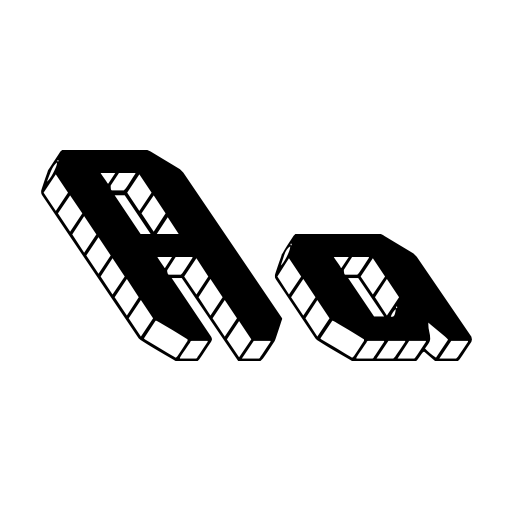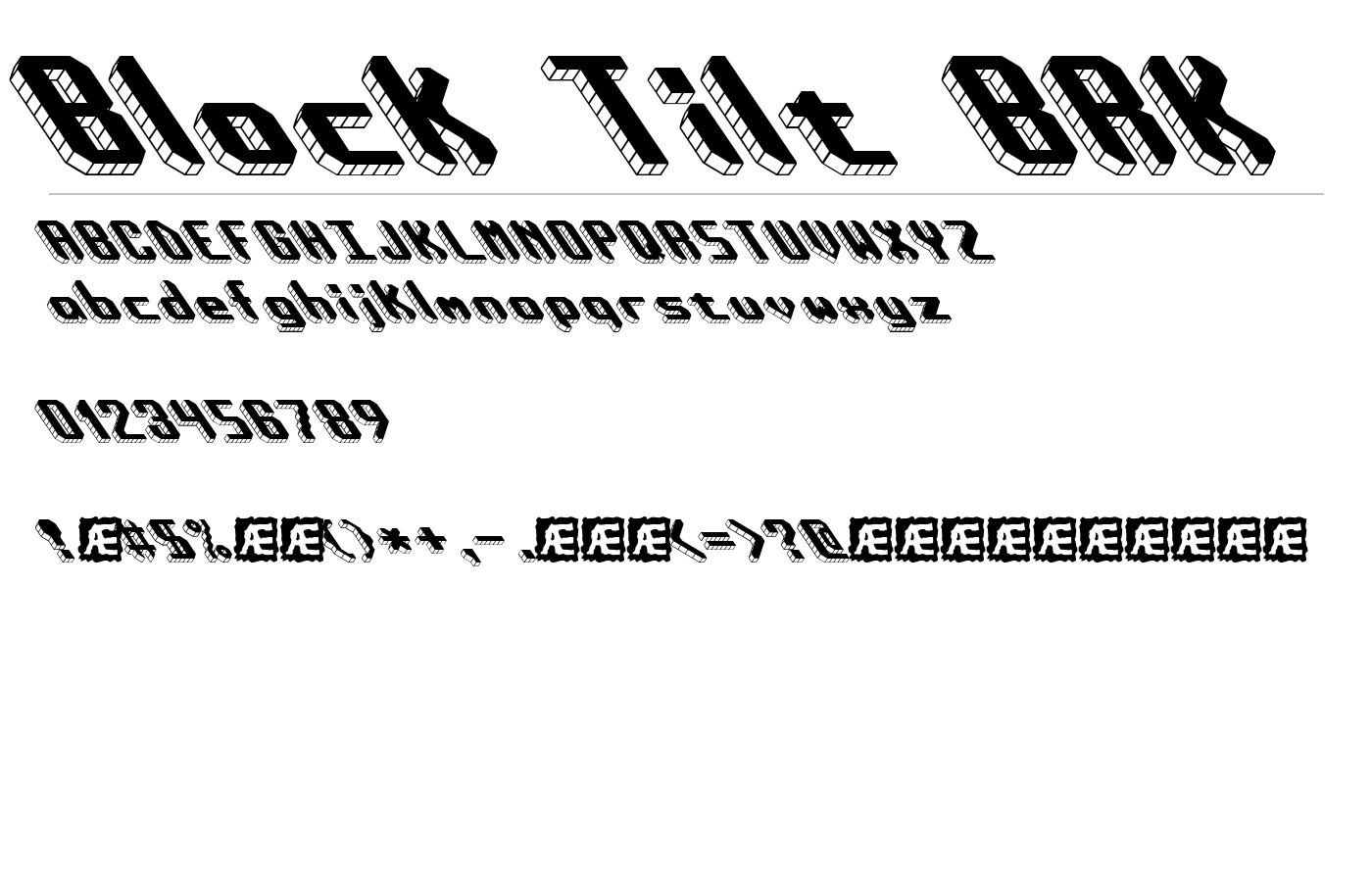
Block Tilt BRK is a bold, geometric sans serif font characterized by its distinctive three-dimensional, tilted block style, giving it a dynamic and striking appearance. Its strong angular strokes and patterned shading create a modern, playful, and eye-catching feel, making it ideal for headlines, posters, and branding that demands a bold, impactful statement. This font works best in display uses where its unique 3D effect can really stand out and add visual interest.
Block Tilt BRK Font